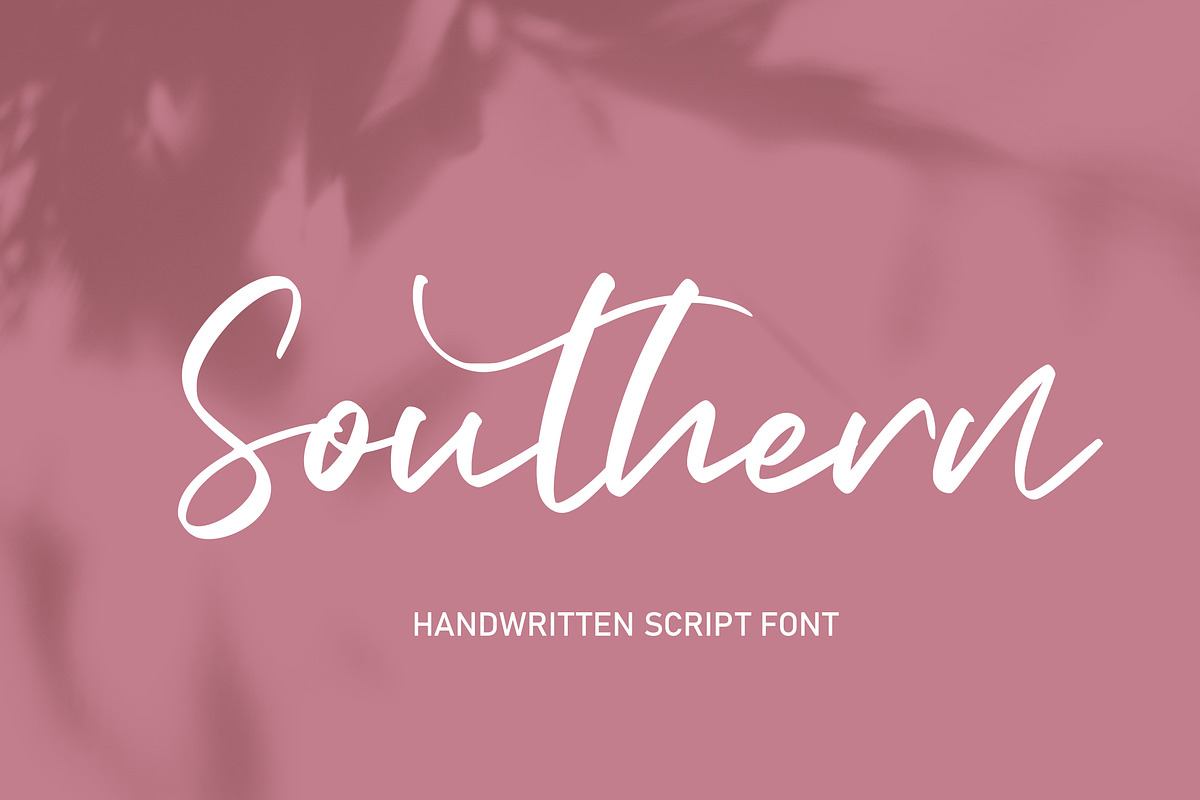
Southern Font is perfect for hospitality branding, comfort food restaurant menus, country music event posters, southern cuisine packaging, bourbon distillery logos, BBQ joint signage, heritage tourism marketing, traditional craft branding, and authentic regional communications.
What makes Southern Font exciting is its warm hospitality character that perfectly captures the charm and gracious spirit of Southern culture through elegantly crafted letterforms that embody traditional values, genuine warmth, and timeless regional pride. This distinguished typeface features classic proportions with subtle regional influences that evoke front porch conversations, family gatherings, and the unhurried elegance of Southern living. The font's hospitable personality combines exceptional readability with genuine regional appeal, making it perfect for projects that need to communicate tradition, warmth, and authentic Southern heritage. Its carefully balanced structure ensures optimal performance across all applications while preserving the distinctive Southern charm that resonates with audiences seeking genuine regional authenticity and traditional hospitality experiences.
Southern Font family includes regionally-inspired style variations: Regular, Bold, Light, Medium, Italic, Traditional, and Heritage versions. Each weight maintains the Southern foundation while offering different levels of regional expression and creative possibilities for hospitality-focused design applications.
The Southern Font Free Download package provides designers with premium typography that brings authentic Southern atmosphere and regional sophistication to any creative project. This versatile typeface excels in both digital and traditional print environments, offering consistent hospitality appeal and readability across various regional media formats. The font's Southern character makes it particularly valuable for hospitality brands, regional restaurants, and traditional heritage service providers.
Design professionals appreciate Southern Font for its ability to create instant emotional connections through genuine regional communication. The typeface's classic structure ensures excellent readability while maintaining its distinctive Southern personality. From regional restaurant branding to heritage tourism marketing, this font adds unmistakable warmth and authentic Southern appeal.
Southern Font performs magnificently in hospitality logos, regional headers, traditional packaging, and heritage materials where Southern charm and regional authenticity are essential. Its comprehensive character set includes regional symbols, traditional decorations, and Southern elements designed to enhance hospitality expressions. The font's warm appearance appeals to audiences seeking genuine Southern experiences and regional tradition authenticity.